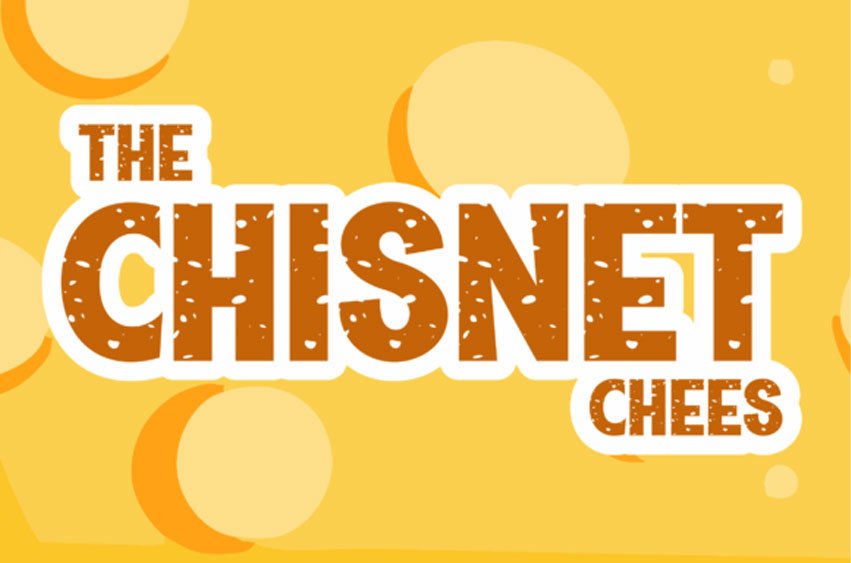
The Chisnet Chees Font Welcome to the captivating world of Chisnet family fonts. Meet Chisnet a uniquely enchanting typography fashioned with delicious cheese-like perforations.
This robust and tasteful font is the perfect typeface to enhance food-oriented designs, especially ones related to cheese. Limitless in creativity and style, make your culinary presentations more appealing with the enticing Chisnet font. Thank you for considering its versatility and charm.